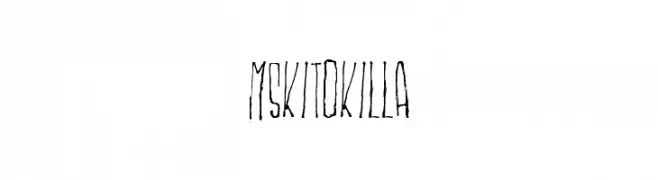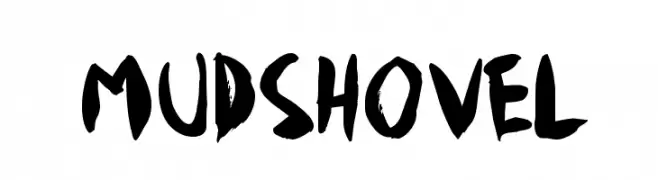
A hand-drawn, artistic font with elongated, irregular letterforms and a textured appearance.
A bold, brush-style font with dynamic and expressive strokes.
A bold, modern blackletter-inspired font with sharp, angular edges.